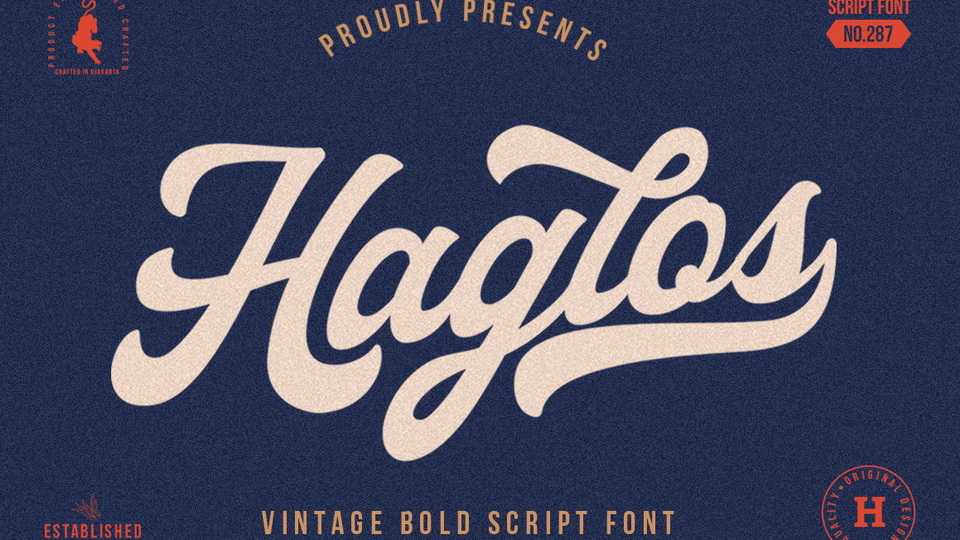
Download Haglos font, a bold script typeface inspired by modern vintage and retro style combined with old American traditional style. Haglos font allows you to create a perfect hand lettering.
Designer: Vultype Co